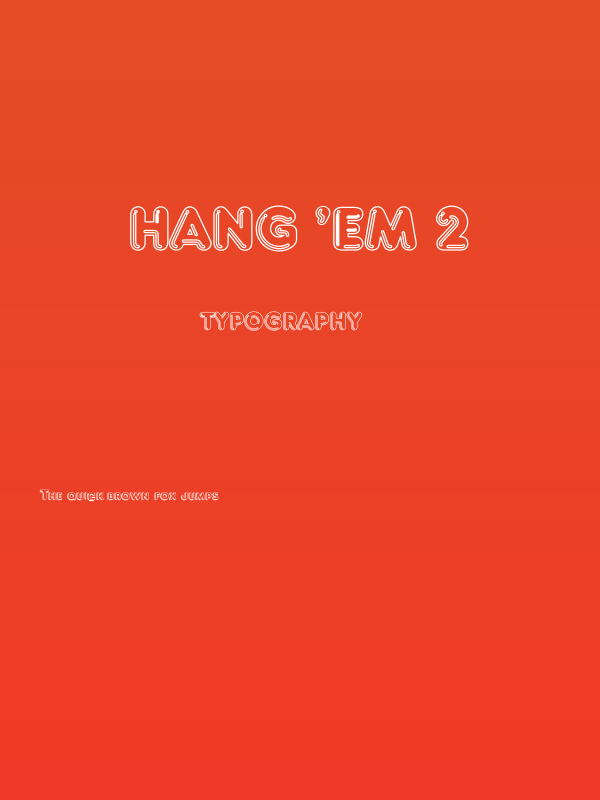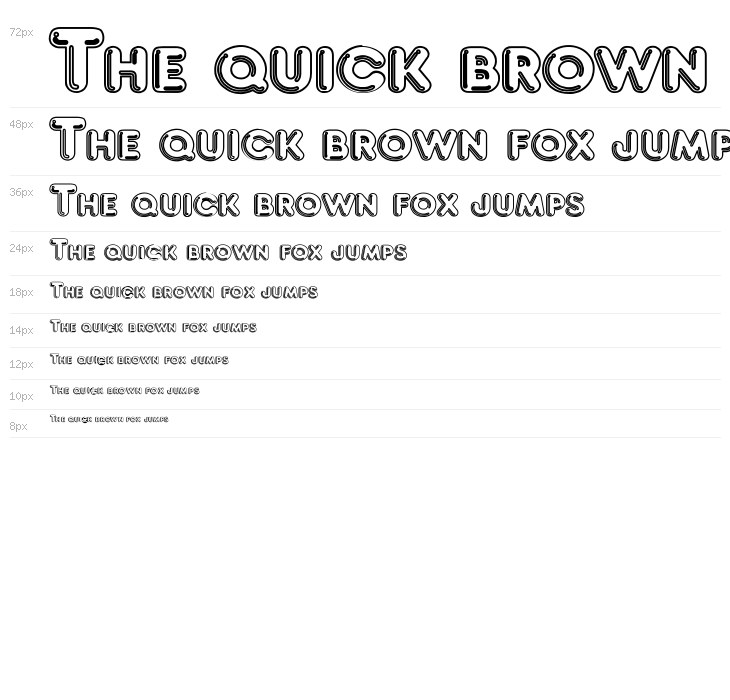
Hang 'Em 2 Font
Hang 'Em 2 Description
This font features a bold, playful design with a double-outline style that gives it a three-dimensional appearance. The characters are uppercase and lowercase letters, as well as numbers and special symbols, all maintaining a consistent, rounded shape. The double lines create a shadow effect, adding depth and a sense of movement. This font is ideal for creating eye-catching headlines or logos that require a fun and dynamic look. The spacing between characters is normal, allowing for readability while still maintaining its decorative style.
| Overall Style | Playful, Decorative |
| Proposed Projects | Ideal for use in children's book covers, playful branding, event posters, and creative logos. |